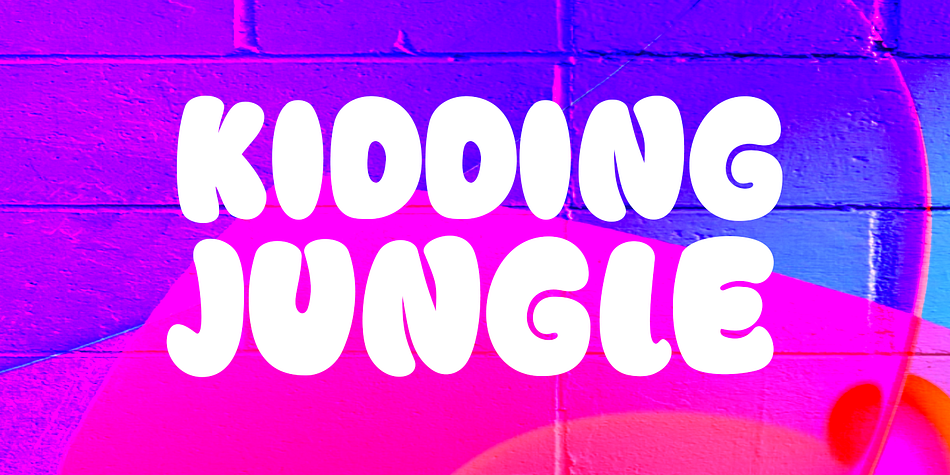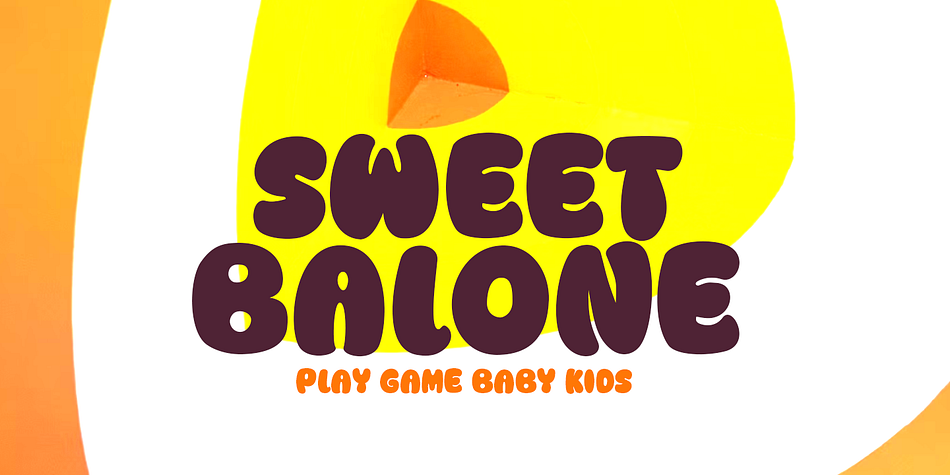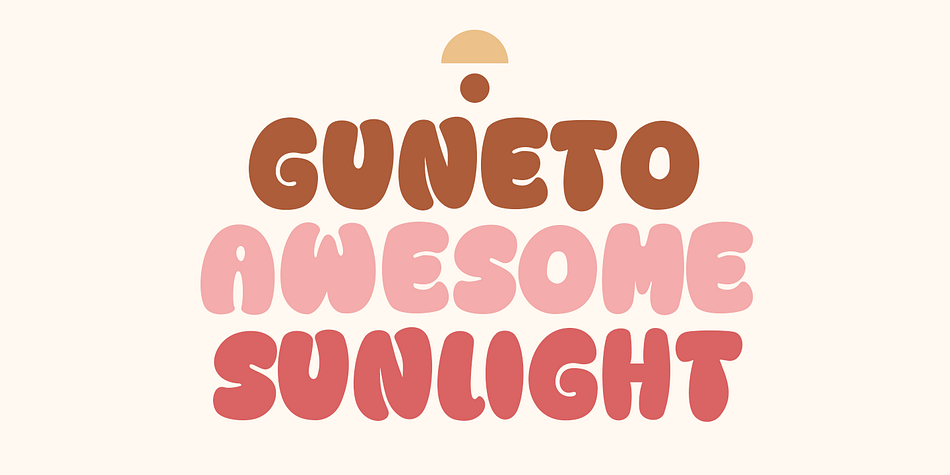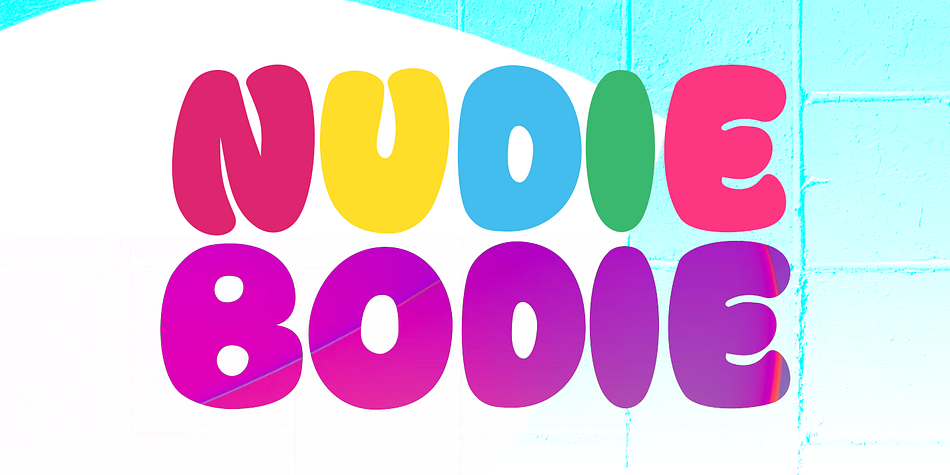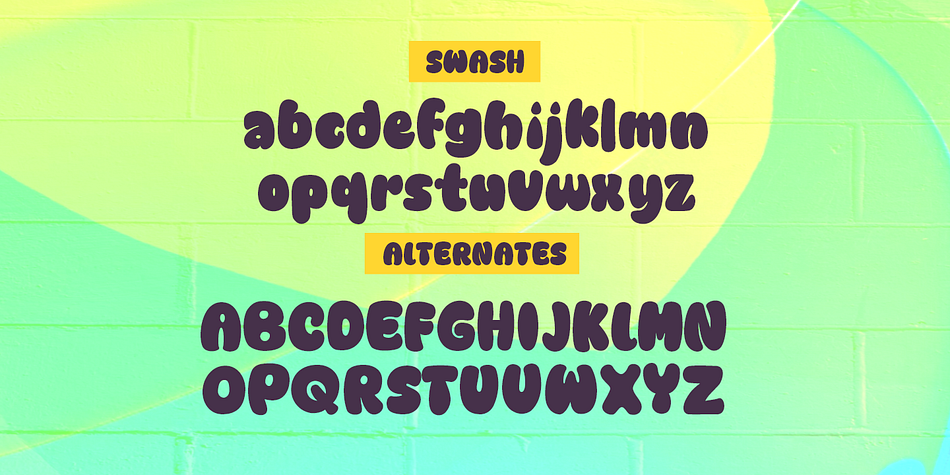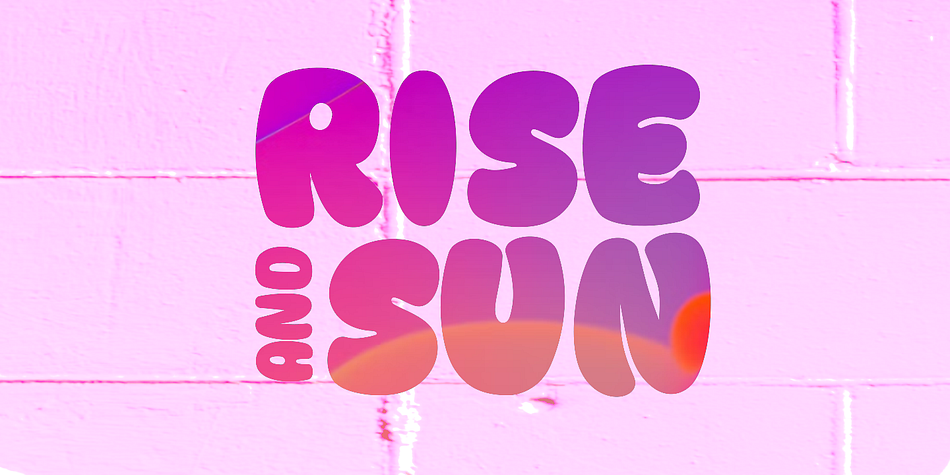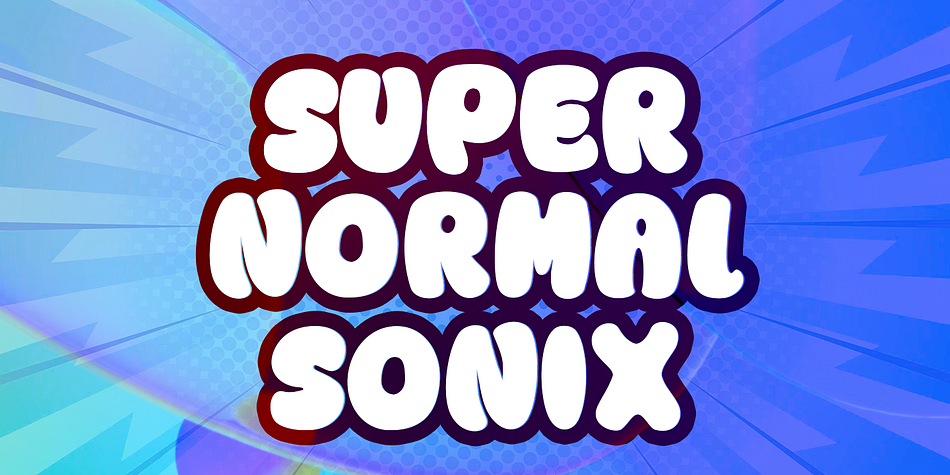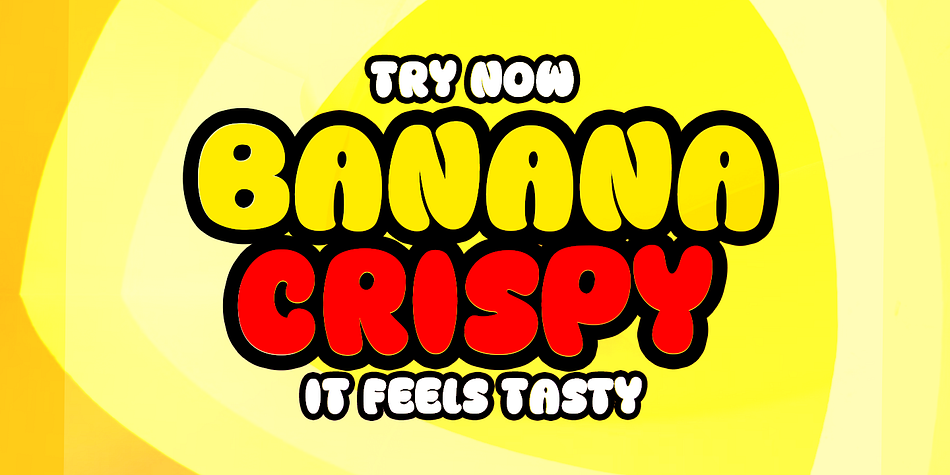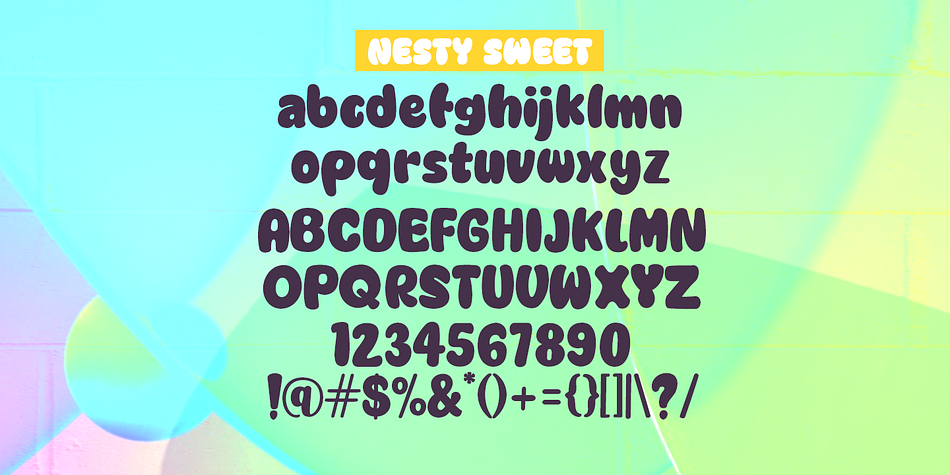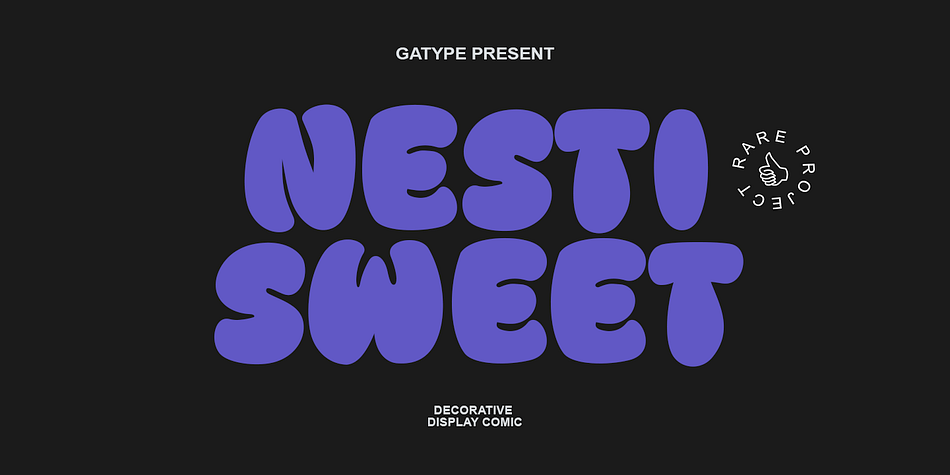
Nesti Sweet
Nesti Sweet is a display sans font family published by Gatype.
Nesti Sweet is a round bubble display font, a very unique trendy font with a combination of modern character bindings, and I think this product suits the teaser display theme in every headline design, business cards, leaflets, magazines, children’s events, and brand screen printing.